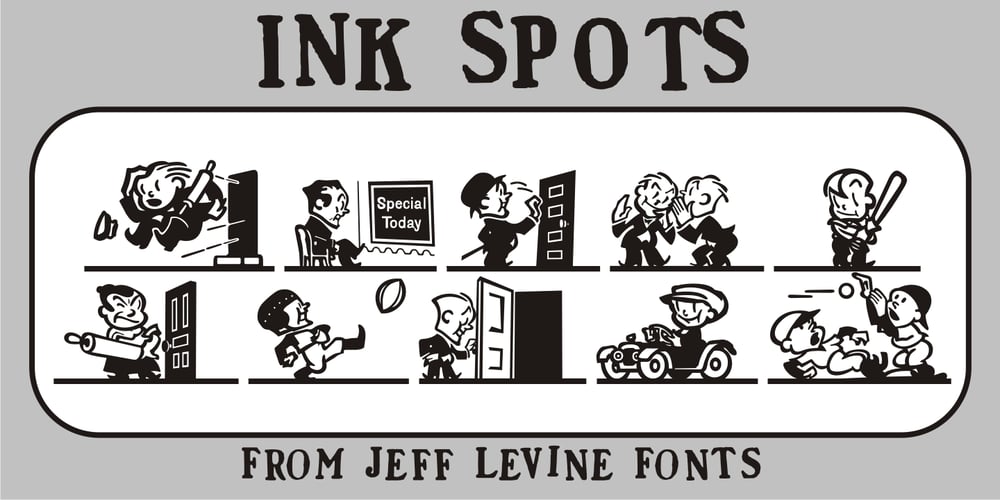
Ink Spots JNL Font Family was designed by Jeff Levine and published by Jeff Levine. Ink Spots JNL contains 1 styles and family package options. For decades, spot illustrations – whether by hot type, photoengraving, clip art or (in later years) digital means provided decorative and often lighthearted breaks in reading printed copy. This collection of twenty-six cartoon images has been meticulously re-drawn in digital format from 1920s-1930s era source material. By adding a simple caption underneath a design, your ad copy can be enhanced with these wonderful period pieces.